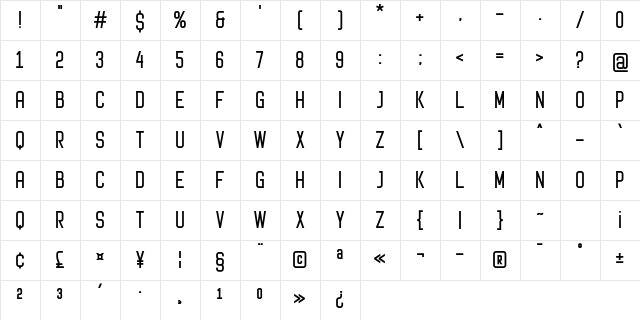
Protique Bold Free Font
Protique Bold
Foundry: Shanaya Creative Studio
Designer: Wahyu Sa
Design Context for Protique
Protique is a composed and adaptable typeface that performs quietly and consistently across a wide range of design contexts. Its bold stroke weight gives it real presence on the page.